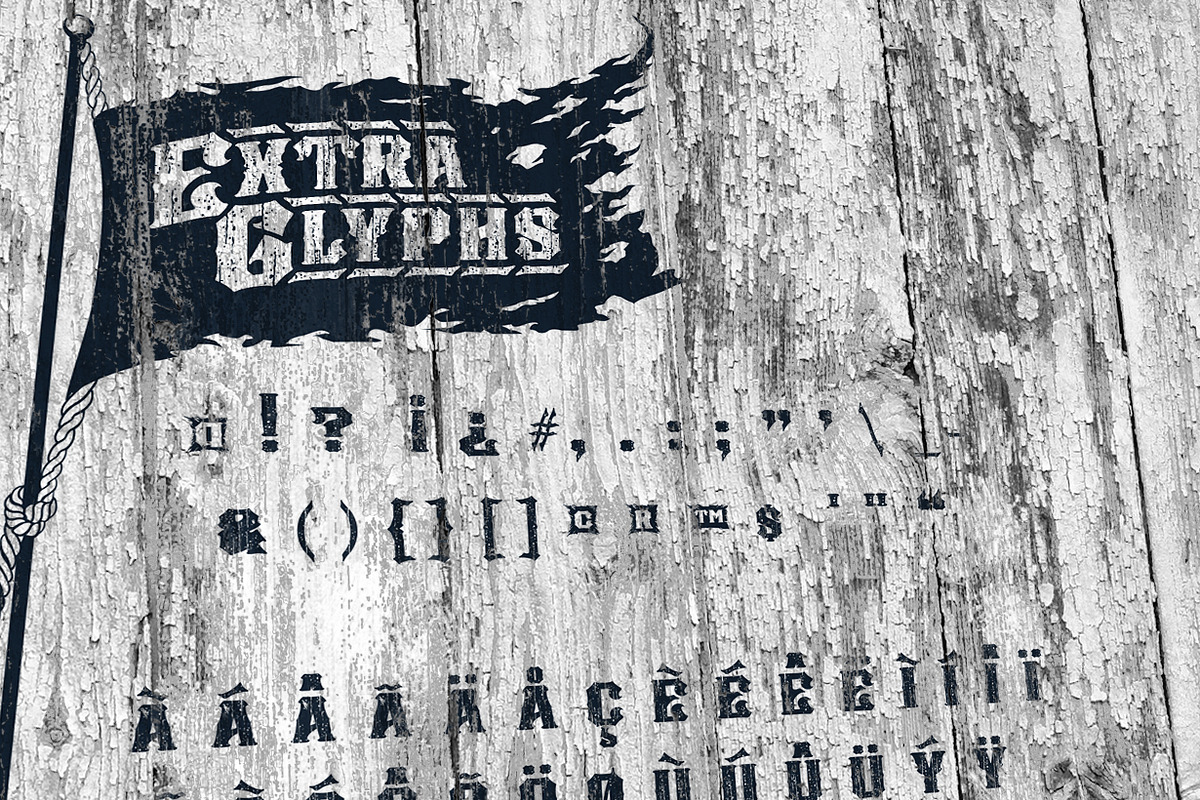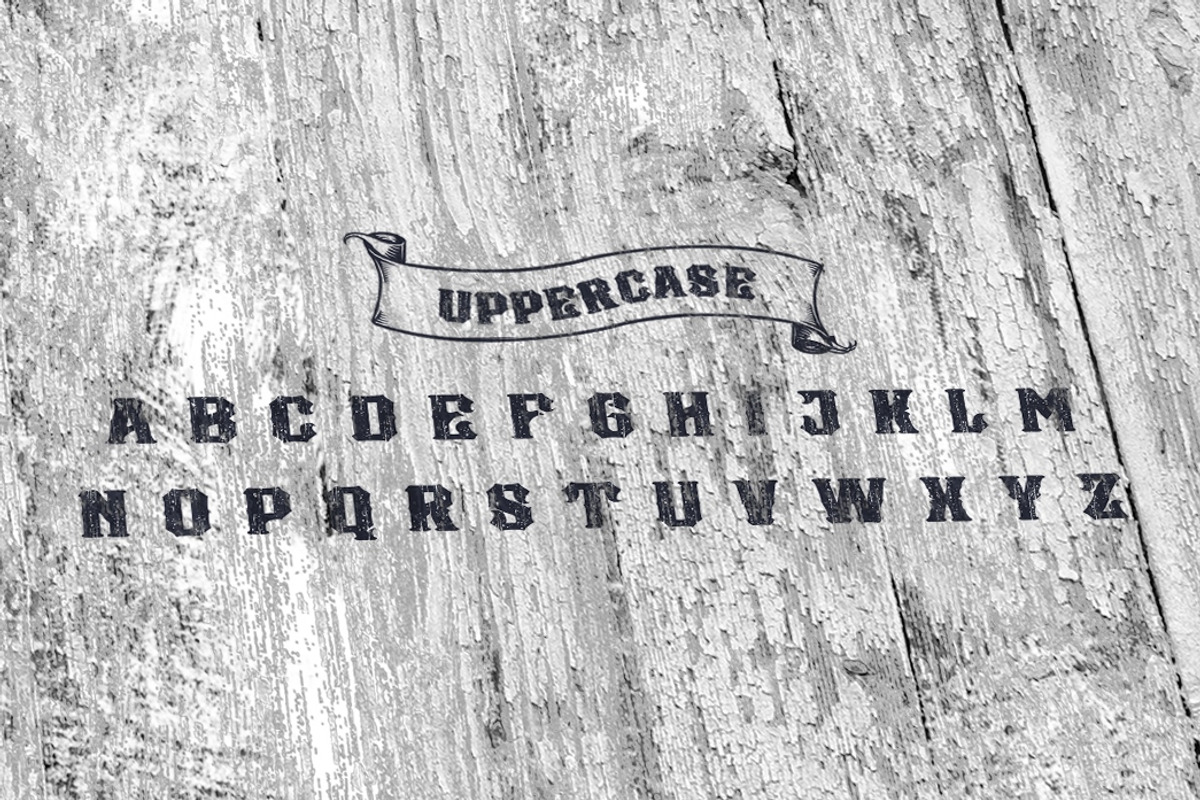
Captain Shipwreck Font
Captain Shipwreck Font by Alphabet Agency is a font selected for branding, posters, packaging, typography.
- The font contains all uppercase, lowercase, numbers and many more extra glyphs.
- It looks great displayed in all uppercase, sentance case and all lowercase.
Why Captain Shipwreck Font is worth a look
Captain Shipwreck Font by Alphabet Agency fits naturally into Branding, posters, packaging, typography.